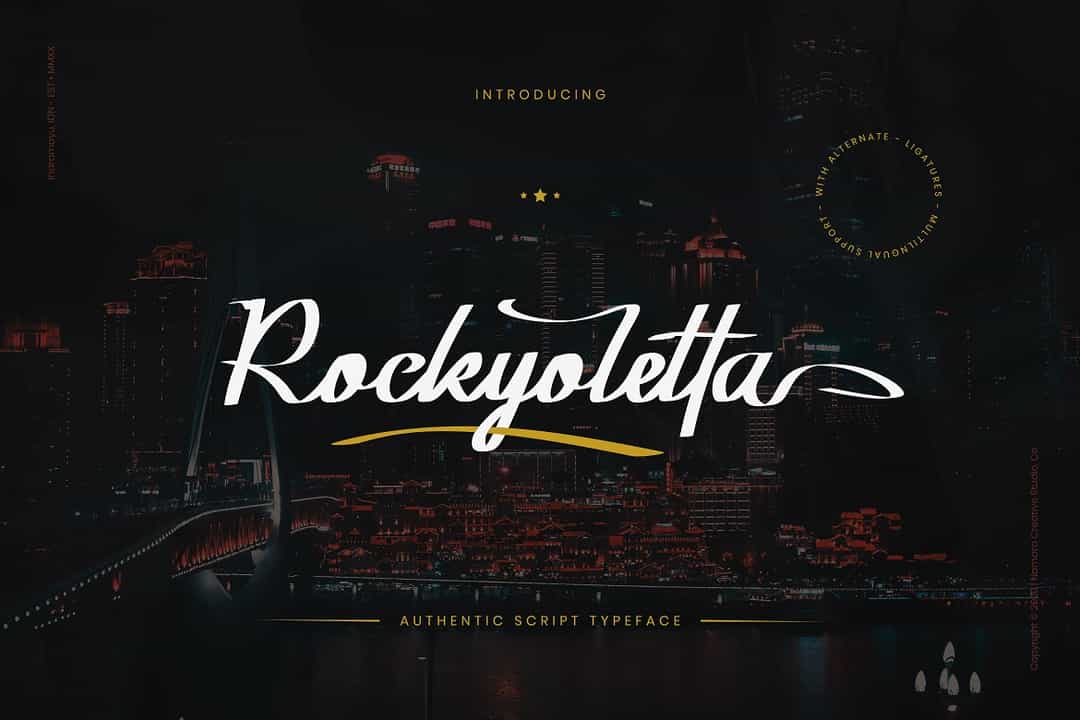
Introducing Rockyoletta Font! A trendy, modern calligraphy script font that has a certain character to it. Due to the variety of styles available, Rockyoletta Font is suitable for watermarks, photos in the social network ads, logos and branding, invitations, products and their packaging, labels, stationery, wedding and other calligraphy and handwriting themed events.